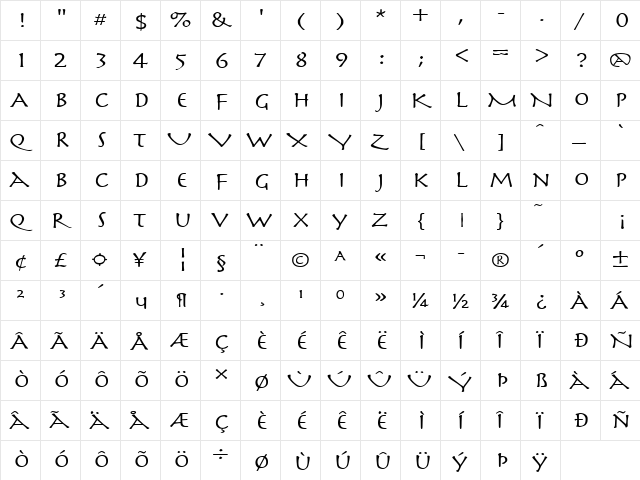
Mythology Wide Normal
Design Context for Mythology Wide Typeface
Mythology Wide is a composed and adaptable typeface that performs quietly and consistently across a wide range of design contexts.